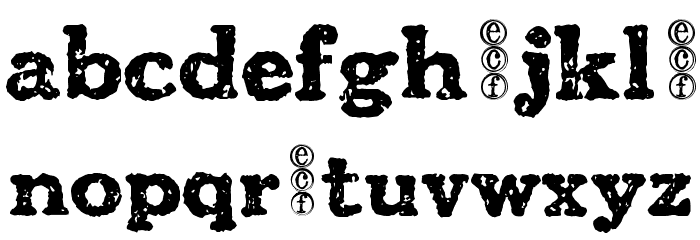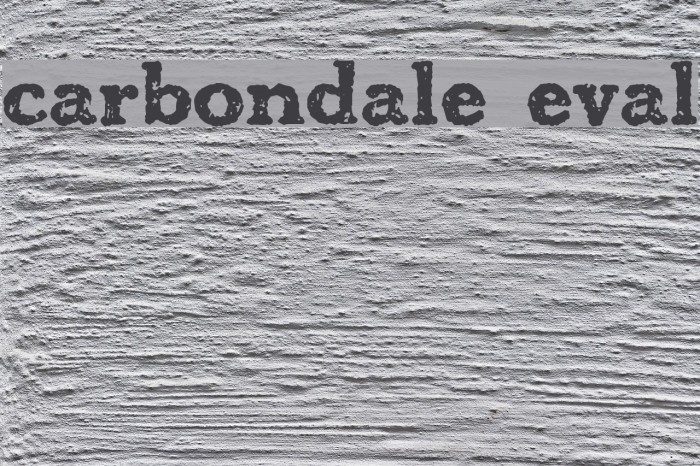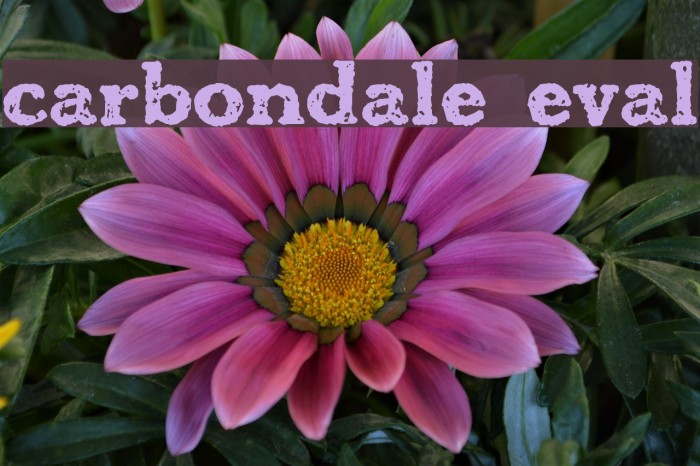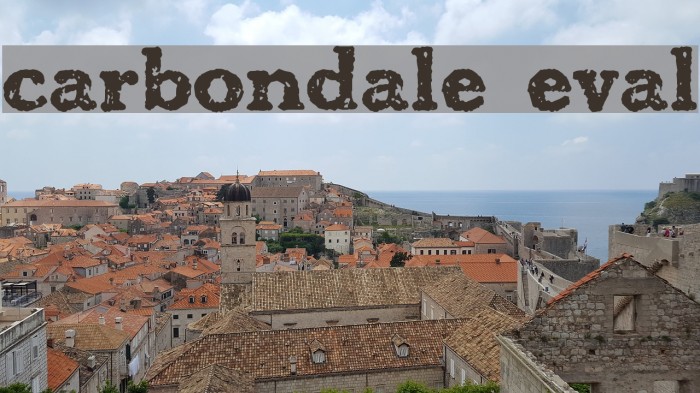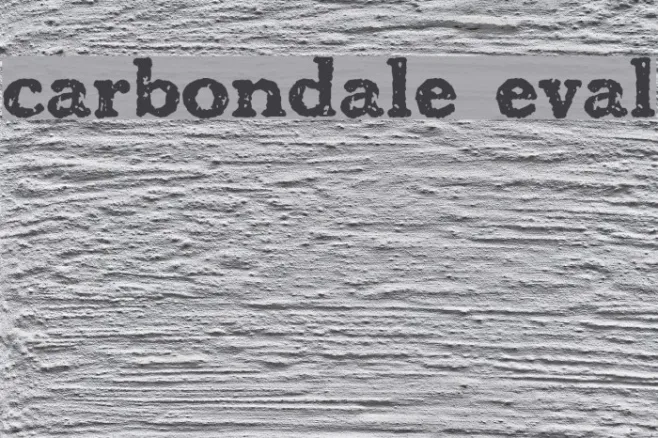
carbondale eval Font
This font features a distressed and textured appearance, giving it a rugged and worn look. The characters are bold and have an uneven, grungy texture that suggests a vintage or industrial feel. The uppercase and lowercase letters maintain a consistent style, with rough edges and a slightly chaotic aesthetic. Numbers and special characters follow the same design, ensuring a cohesive look across all glyphs. This font is ideal for projects that require a bold statement or a touch of edginess, such as posters, album covers, or branding for alternative or retro-themed products.
- Proposed Projects: Ideal for posters, album covers, branding for alternative or retro-themed products.
- Overall Style: Vintage